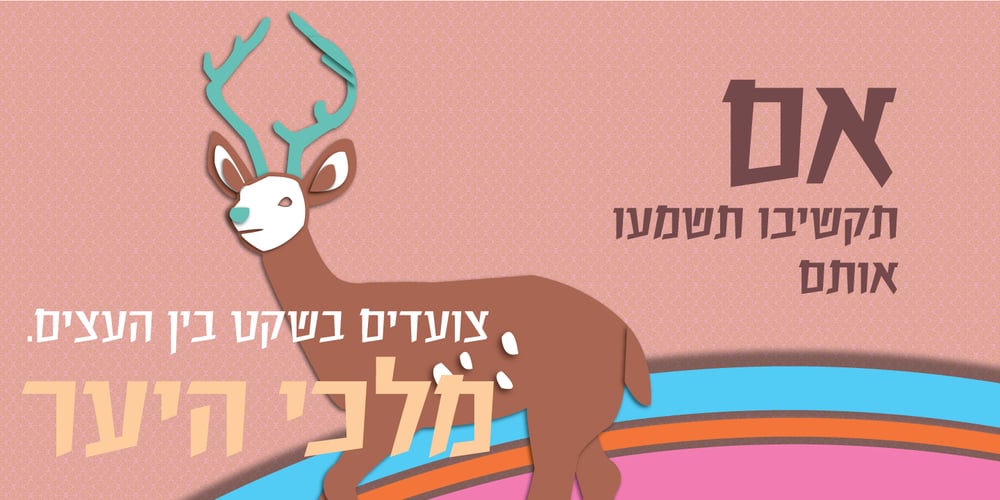
Gizbarut MF Font Family was designed by Zvika Rosenberg and published by Masterfont. Gizbarut MF contains 3 styles and family package options. high contrast geometric forms make this elegant font family a great companion for titles, invitations and signs, indoor and outdoor.